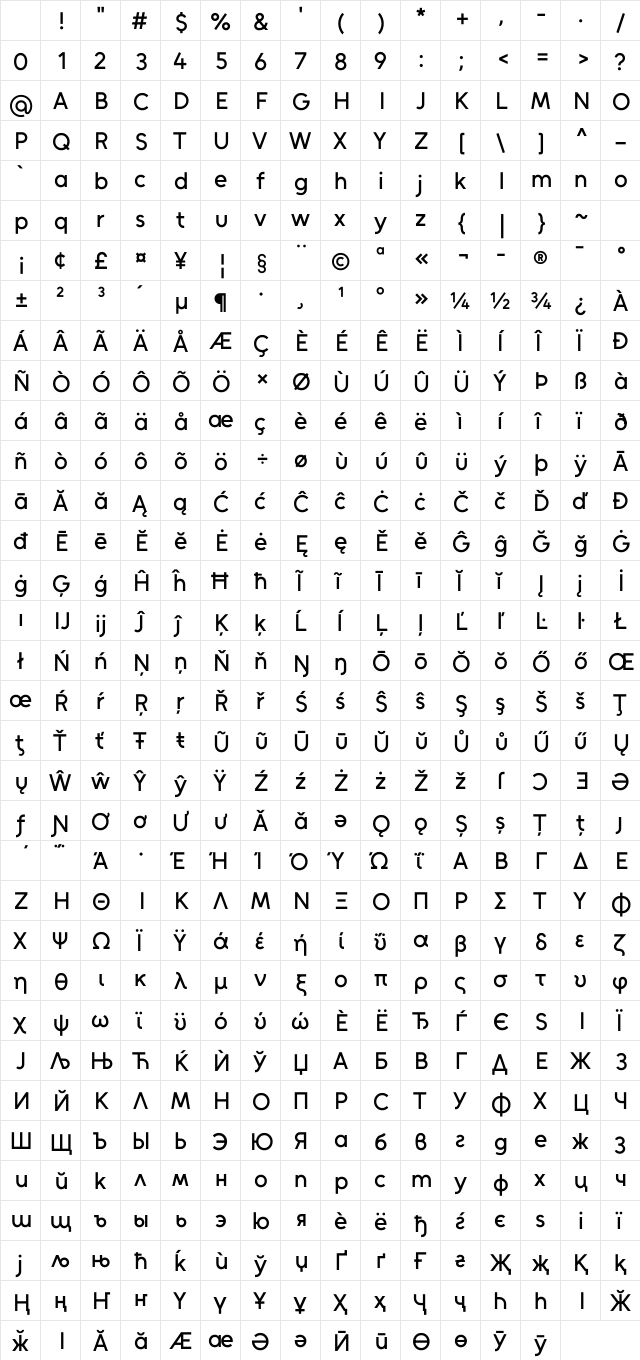
Unageo Medium
Foundry: Richard Sepsi
Designer: Richard Sepsi
Complete Unageo Medium glyph index. Displaying only characters natively supported by Unageo Medium font.
Design Context for Unageo
Unageo is a composed and adaptable typeface that performs quietly and consistently across a wide range of design contexts.
Pro Tip: Use Unageo in both headline and body roles to test its range before committing to a single application.
Who designed the Unageo Medium font?